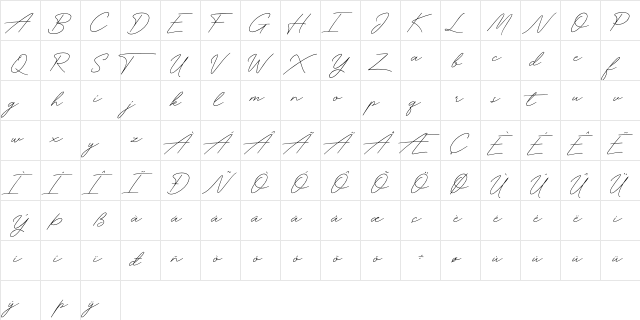
Funky Signature Regular
Design Context for Funky Signature Typeface
Funky Signature trades formality for fun, with bouncy, characterful letterforms that bring warmth and energy to any project.
Font Pairing: Pairs well with a rounded or humanist sans for body copy, maintaining the friendly tone without relying on Funky Signature to carry extended reading.
Pro Tip: Avoid using Funky Signature for long passages of text — it works best for headlines, labels, and short calls to action.